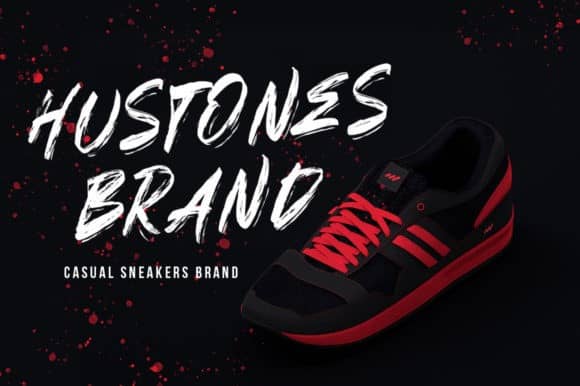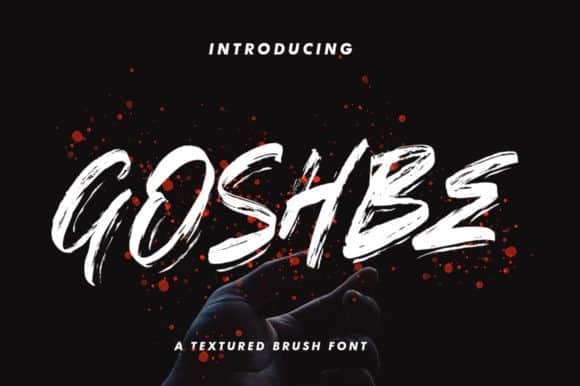
Goshbe Textured Brush Font
Introducing Goshbe Textured Brush Font. It’s a handwritten brush font, it’s a supercharged, street-wise brush font bursting with energy. With extra attention to quick strokes and sharp details. It is design and shared by vultype. Goshbe Textured Brush Font results out of a stunning pairing of a brush pen and pencil that makes it look incredibly endearing and authentic. Use this gorgeous and unique handwritten font to bring any DIY project to life!